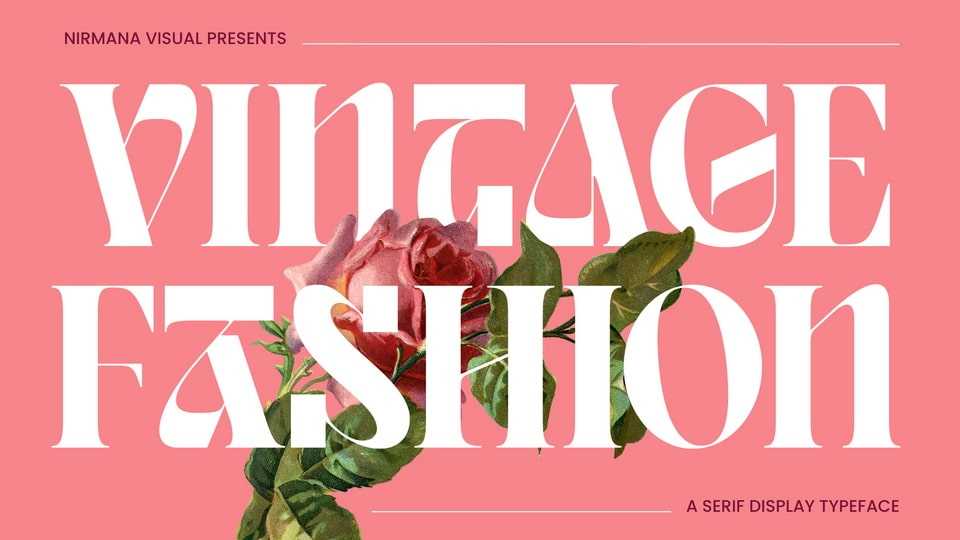
Download Vintage Fashion font, a sophisticated and stylish display typeface. With its unique personality Vintage Fashion font is perfect for logo, branding, editorial use or pretty much any design that requires a vintage an exquisite touch.